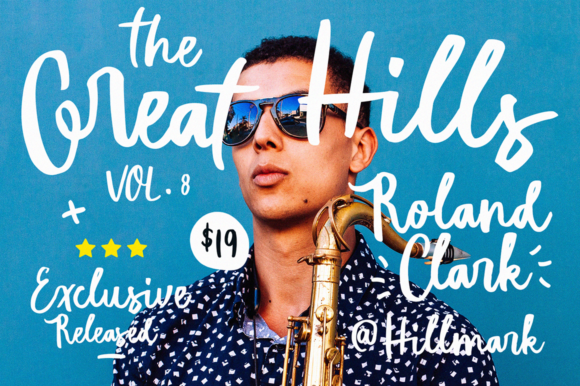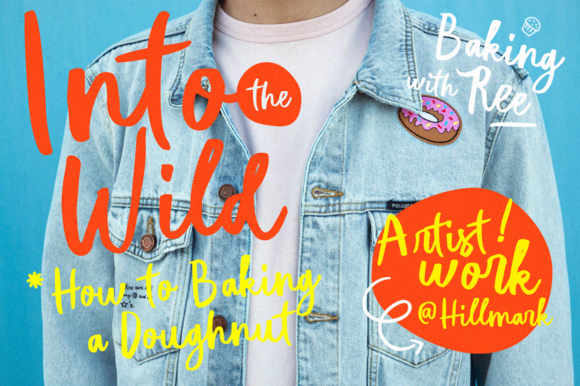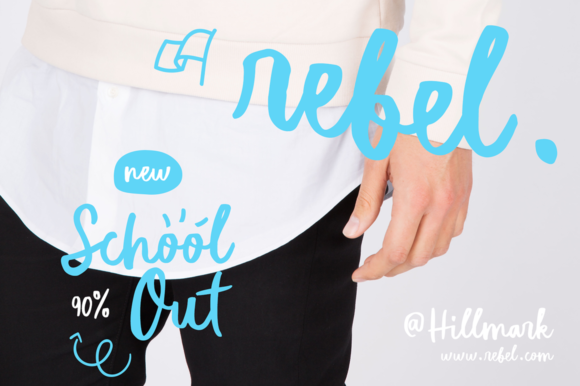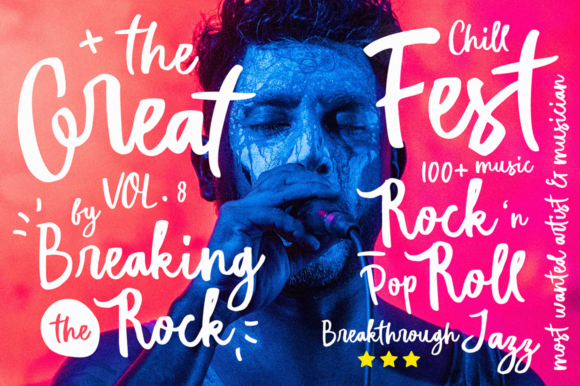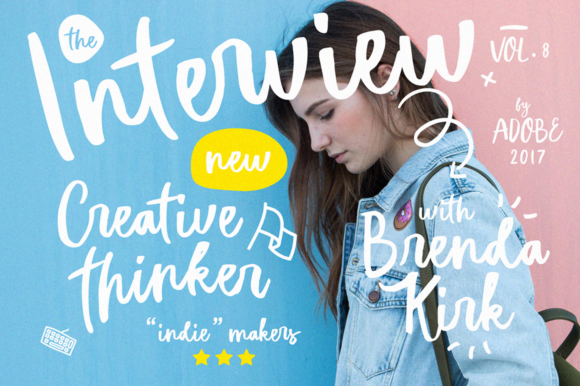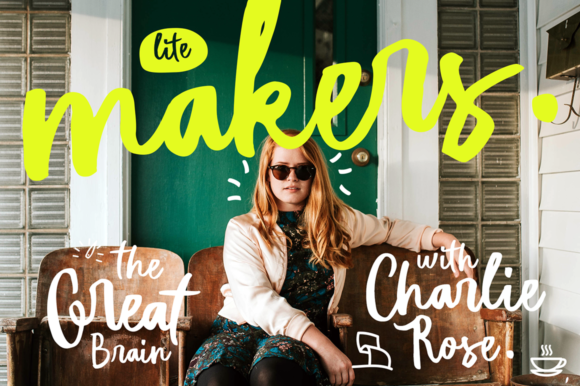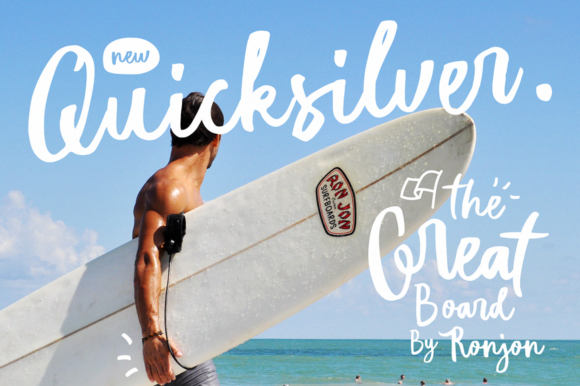
Hillmark Font
About Hillmark Font
Hillmark, a brand new typeface script font. Quirky and stylish, just right for your new designs.
Perfectly fit for your fashion branding, magazines, handwriting logos, inspirational quote posters, oh well you name it.